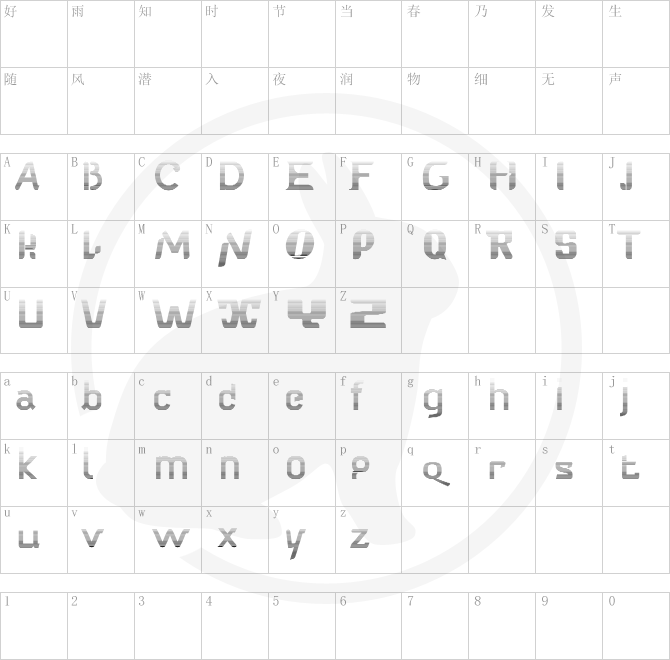
- Font Name:BabelfishZebral
BabelfishZebral.ttf is a very beautiful artistic font, BabelfishZebral.ttf is widely used in the design and printing of various books and pictures,BabelfishZebral.ttf has a strong visual impact,BabelfishZebral.ttf is a commonly used font in newspapers, magazines and books, and is used in posters, e-commerce Poster design, store design, logo design, font design and other fields.BabelfishZebral.